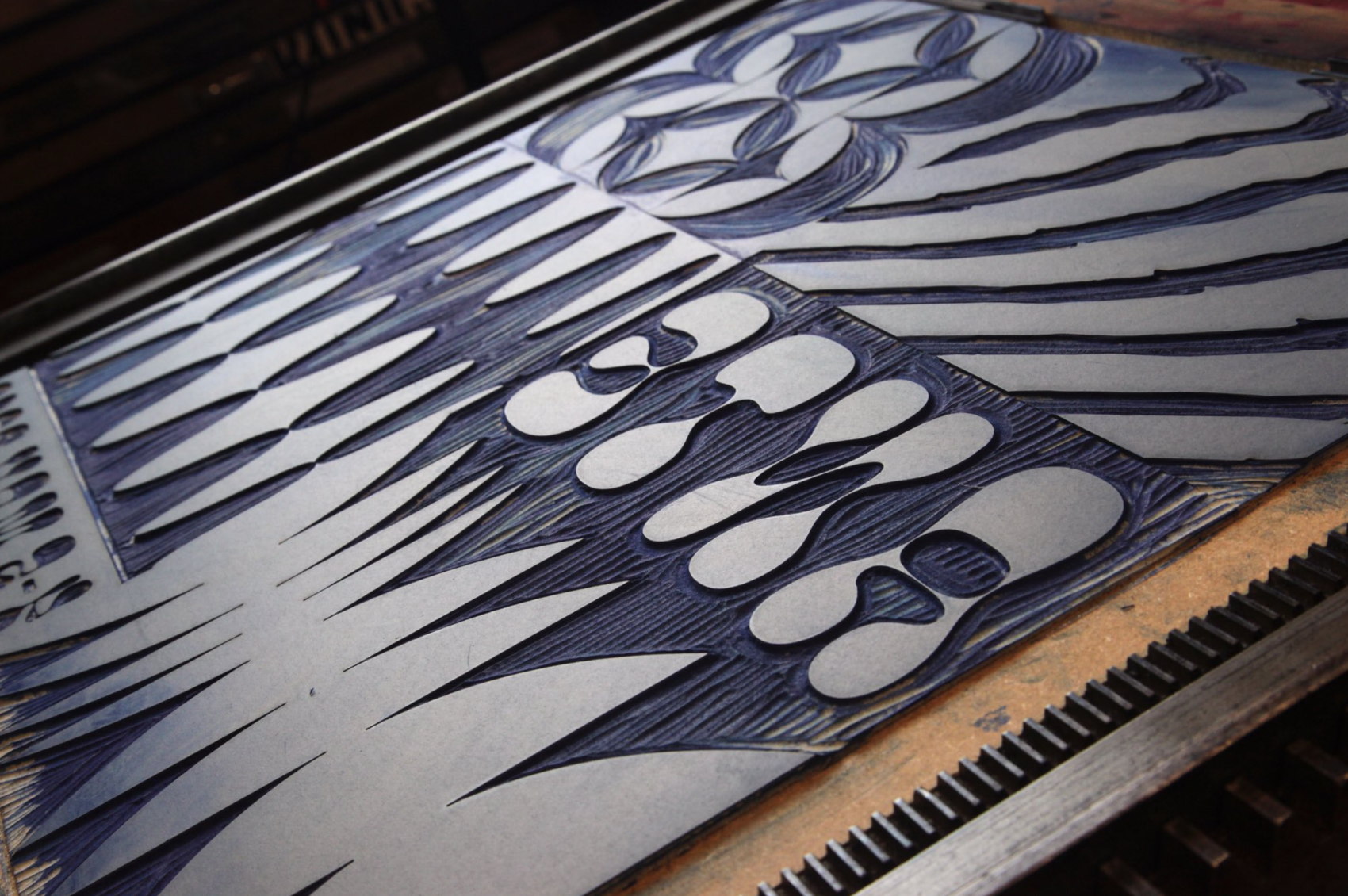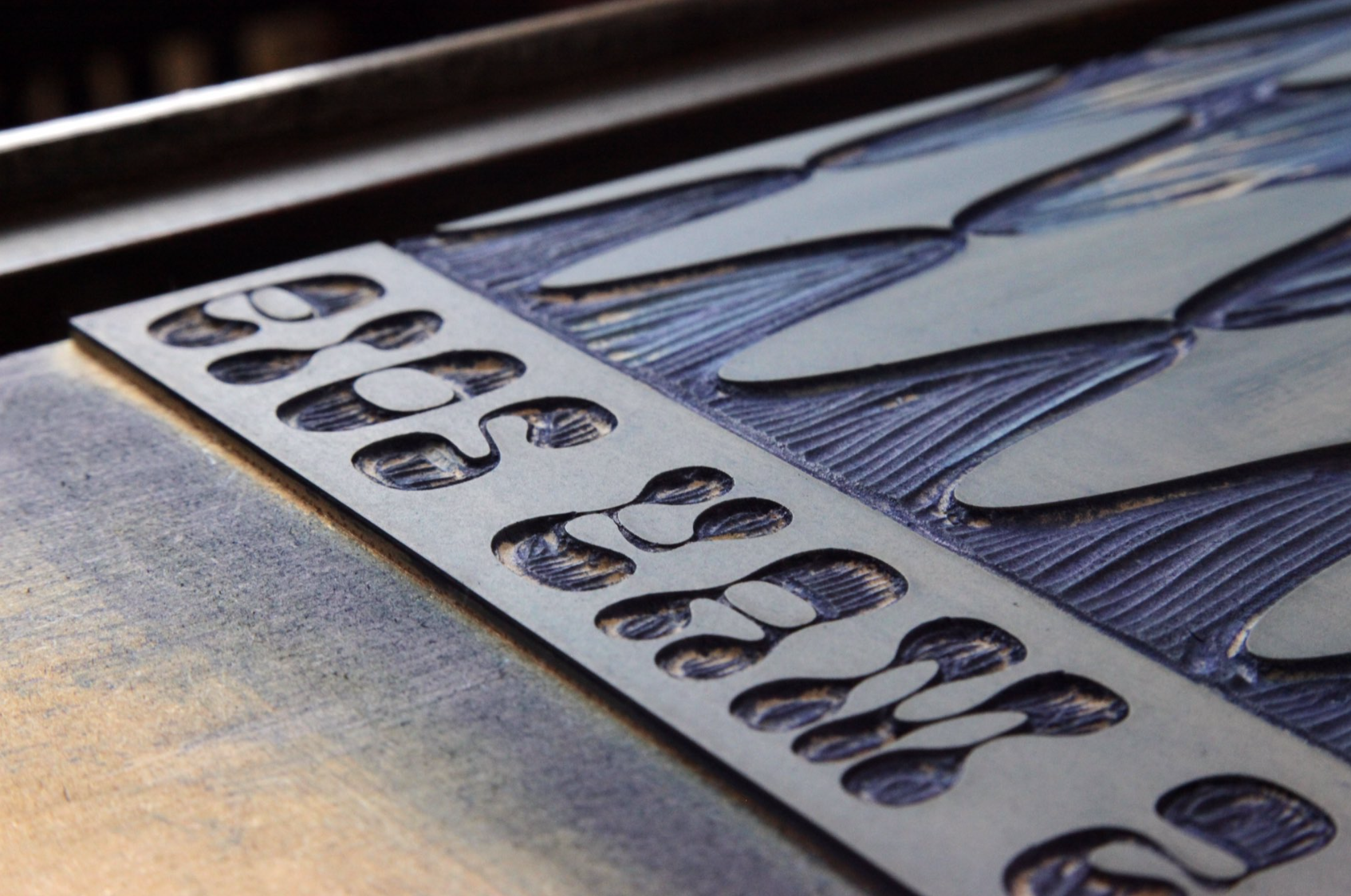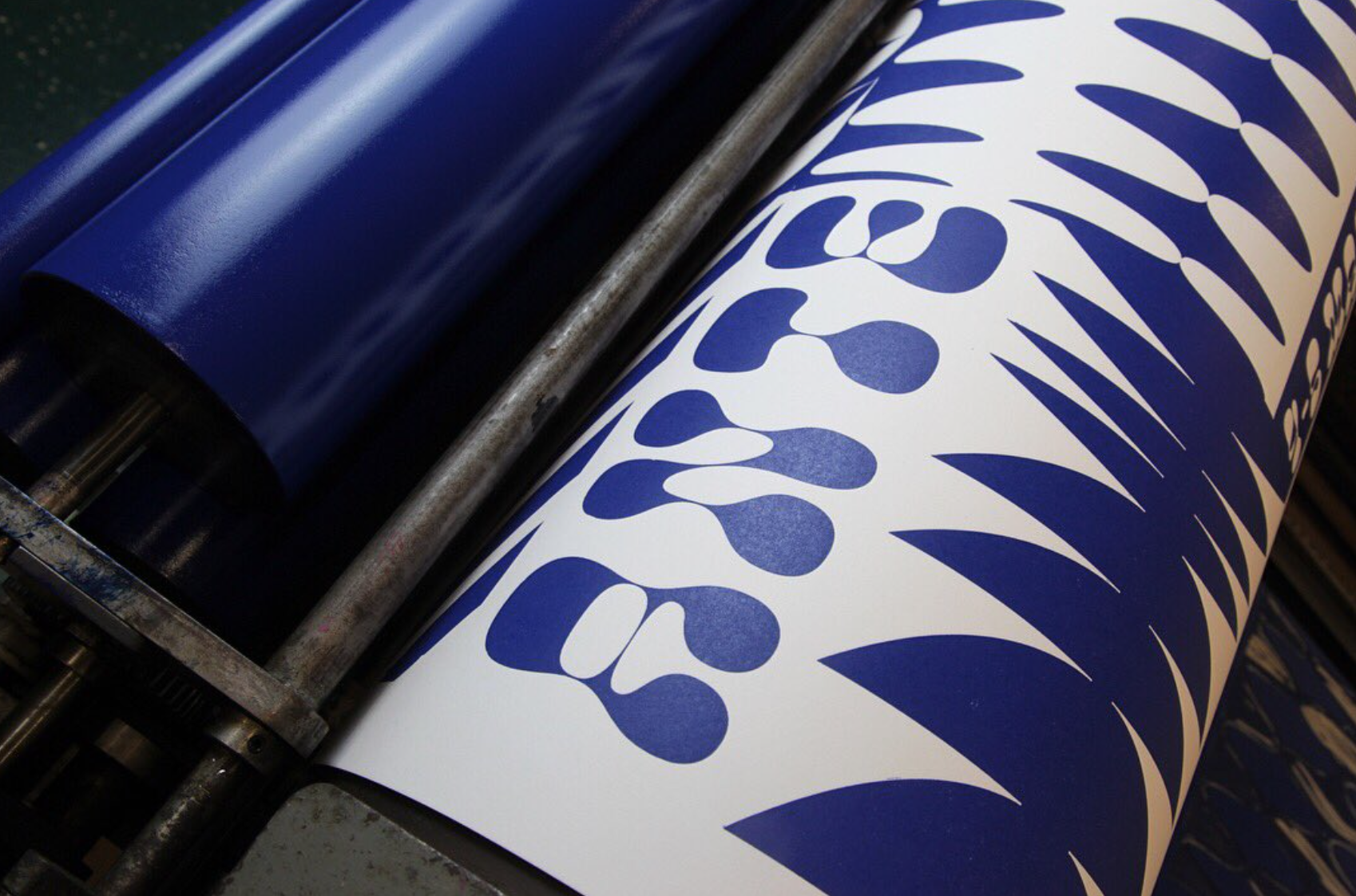
Printing is everything in this week's May Day 2019 ANTE art festival
A life promised for tomorrow is a life robbed of today is the motto of ANTE, the festival which brings a May Day creative fest to Shipley this weekend. The letterpress printed poster for this "anarchic weekend of exhibitions, workshops, food and live music" is a beauty, designed by The Print Project, a letterpress printing resource tucked away in the small northern town of West Yorkshire.
Ever since 2010, The Print Project "has been raising hell and the dead with its distinctive high quality letterpress printing from its base in the small northern town of Shipley. From posters that will poke you in the eye to finely crafted pieces of print that will knock your teeth out, the Yorkshire based outfit exclusively uses 500 year old printing technology killed off by commercial interests and given the kiss of life by our resident print maniacs" notes the website of TPP.
In love with wood and metal type, for the folks at The Print Project "letterpress printing is not an aesthetic, it’s a rigorous and methodical process which produces tactile vibrant printing that will make you want to kiss a goat, stroke a pig or say hello to Jesus."
"Letterpress printing is a rigorous and methodical process which produces tactile vibrant printing that will make you want to kiss a goat, stroke a pig or say hello to Jesus"
So, as May marches on feast your eyes with all the printed creativity unleashed during ANTE which takes place on 4-5th May at The Kirkgate Centre in Shipley and "feast your eyes" with printing (letterpress, solar, stencil), zine and all of Golden Cabinet's psychedelic posters on display.
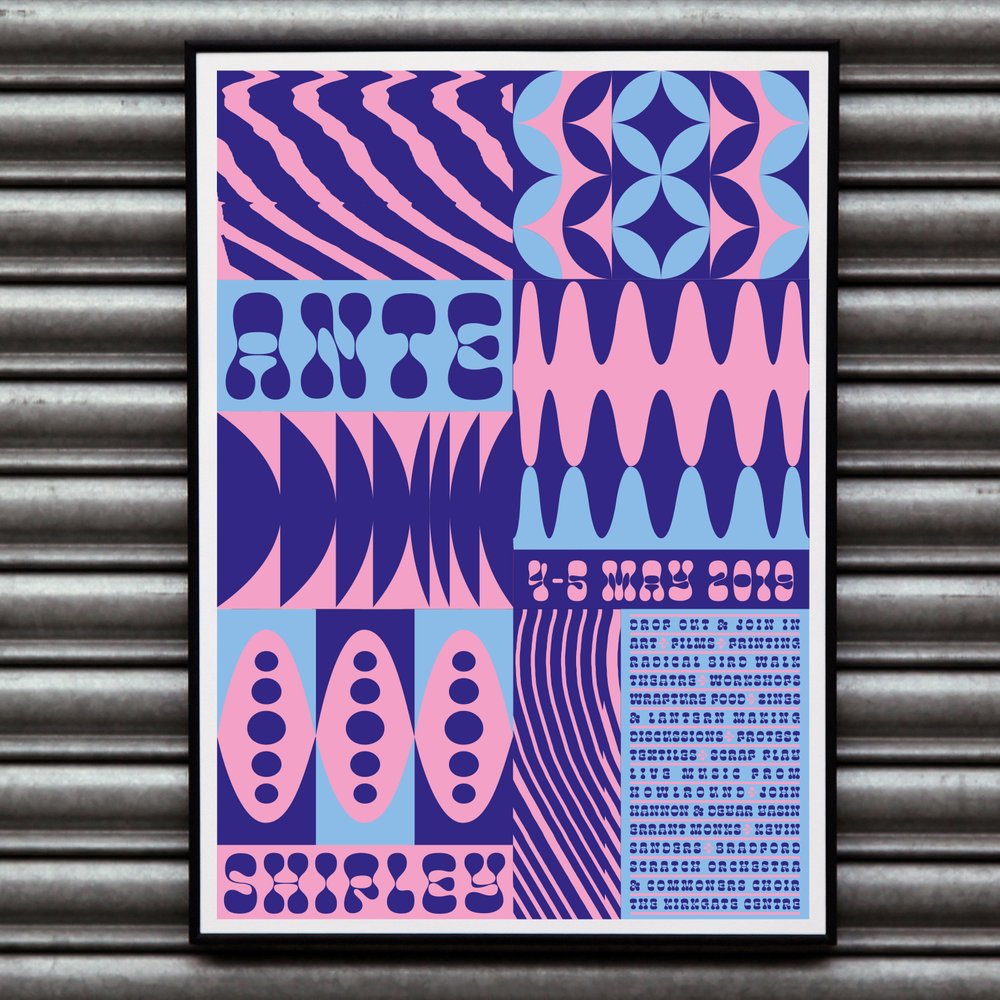
"Wild colours, overlapping shapes, repetition of shape & form and a strong nod toward modernism. Combining metal type with a wild array of abstract imagery created through the use of Duke Studio’s laser cutter with an often garish fluorescent colour palette has meant the posters have gone on to become something of a success much in the same way the night is" notes The Print Project of this ongoing poster experiment. May Day 2019 will look and feel amazing in Shipley, don't you agree?